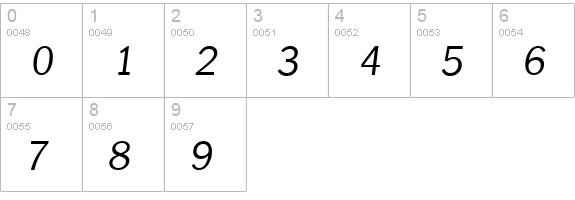
PlymouthSerial-Light-Italic is a refined, elegant, italic variant in the PlymouthSerial typeface family \xE2\x80\x94 well suited to elegant body text, refined sub-headings, and luxury branding.
PlymouthSerial-Light-Italic is a sophisticated and elegant font that exudes a sense of modernity and style. Its sleek lines and subtle curves make it perfect for adding a touch of sophistication to any project. The light weight and italic design of this font give it a unique and eye-catching appearance that is sure to make a statement. Best of all, PlymouthSerial-Light-Italic is available for free download at FontsMarket.com. This means that you can easily access this stunning font without any cost, making it a valuable addition to your font collection. Whether you're working on a design project, creating a logo, or designing a website, PlymouthSerial-Light-Italic is a versatile and stylish choice that will elevate your work to the next level.